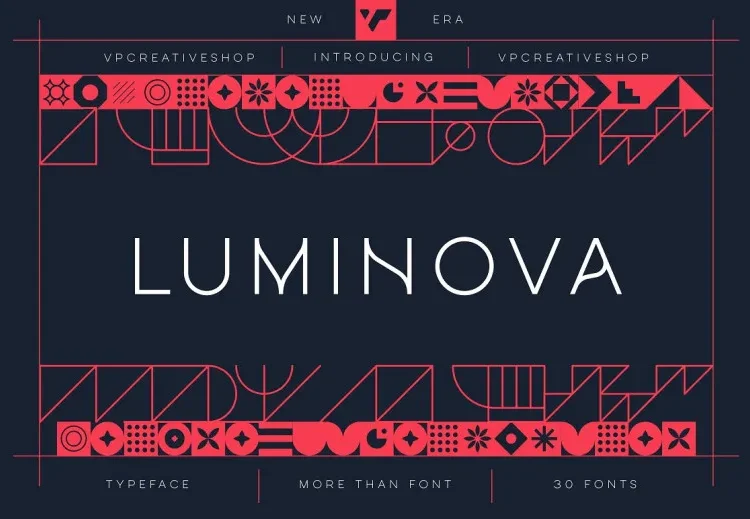
Luminova Font
Luminova Font is a versatile and sleek sans serif typeface designed to elevate any project. With a collection of 30 fonts, including Regular, Italic, Rust, and Soft styles, Luminova adapts to a wide range of design needs, adding sophistication and clarity. Whether you’re creating classic, timeless designs or seeking a nostalgic or affluent touch, Luminova has the perfect font style for the job.
What makes Luminova truly unique are its two pattern fonts, which allow you to create stunning mosaic designs that stand out in posters, branding materials, and more. With Luminova, you can ensure that your designs make a lasting impact, whether you’re working on a corporate identity or a creative venture.